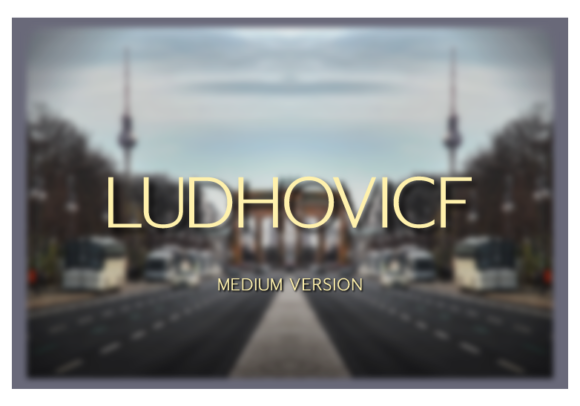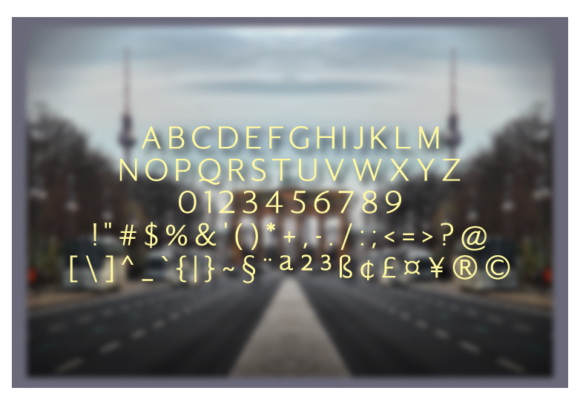
HomeSans Serif FontsLudhovicf Medium Font Sans Serif Fonts Ludhovicf Medium Font FacebookXPinterestWhatsApp Ludhovicf Medium Font 1 of 2 About Ludhovicf Medium Font Ludhovicf blends traditional Spanish architectural elements with modern, minimalist design. Its unique cut-ins & curves make it a true standout! DOWNLOAD NOW People also explored Hot Springs Font Stanlley Font Best Friends Font Buttertime Font Blackburn Font Whalebone Jullysinty Font Homiest Monoline Font Dl Arsara Font 388 0 TagsLudhovicf Medium Font Previous articleLudhovicf Semi-Bold FontNext articleLudhovicf Font LEAVE A REPLY Cancel reply Comment: Please enter your comment! Name:* Please enter your name here Email:* You have entered an incorrect email address! Please enter your email address here Website: Save my name, email, and website in this browser for the next time I comment. Personal Use Free Cuttering Personal Use Free Read more about this font Alligator Font Personal Use Free Read more about this font Whitelight Personal Use Free Read more about this font Charlie Personal Use Free Read more about this font BLOG Free Fonts Risk: Why Free Fonts Can Be Dangerous for Designers Free Fonts Risk: Why Free Fonts Can Be Dangerous for Designers Using free fonts is a common practice in web and graphic design. However, the... Transform Your Website: Elevate Your Typography with 7 Best Web Font Generators Best Fonts for T-Shirt Design – Top 2025 Picks To increase your work productivity, choose the most readable fonts.